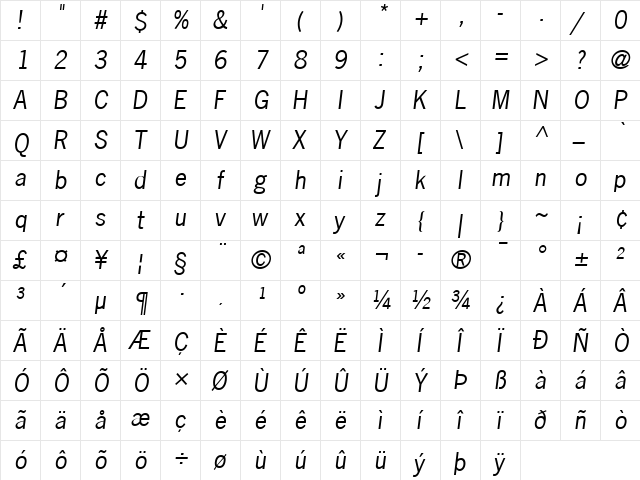
NewsGothic LT Italic
Design Context for NewsGothic LT Typeface
NewsGothic LT has the quiet confidence of well-executed sans-serif typography: versatile, unobtrusive, and dependable at any size. Its italic angle brings a sense of urgency and motion to the letterforms. Its slender proportions lend an understated elegance to any composition.
A natural fit for high-end product packaging, luxury brand identities, and refined web typography.
Font Pairing: Pair NewsGothic LT with a medium or bold serif for headlines — the weight contrast creates an elegant, high-end feel.
Pro Tip: Use NewsGothic LT with generous tracking and line-height for the most luxurious effect — light sans-serifs reward spacious, considered layouts.